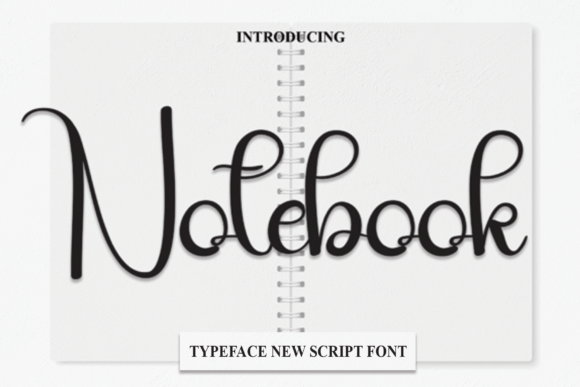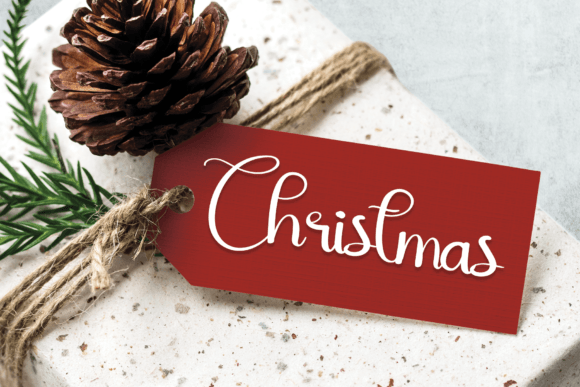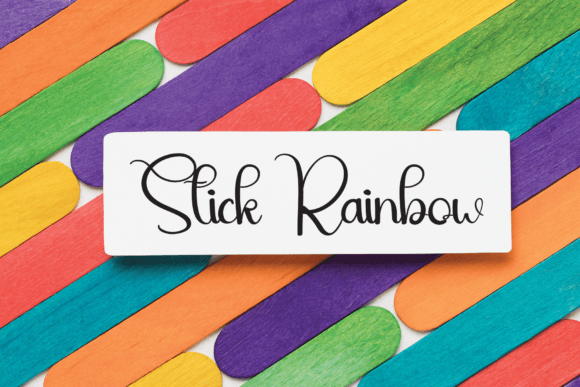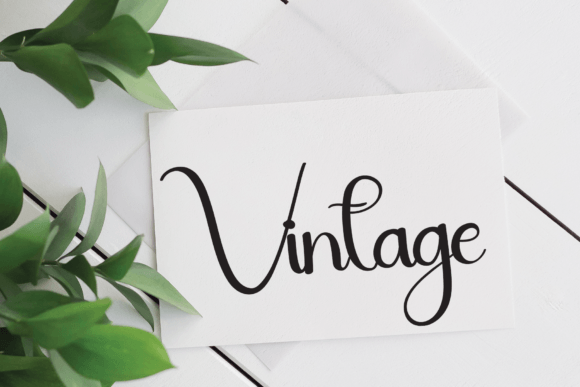
Notebook Font
Add a natural and approachable feel to your creative projects with the Notebook font. This simple and friendly handwritten script is perfect for a variety of occasions. Whether you are working on crafts, digital design, presentations, or greeting cards, Notebook is a great choice to enhance your work.
The Notebook font features clean and easy-to-read strokes that add warmth and friendliness to any design. Its versatile style allows it to be used across many different creative projects. This font helps your designs feel personal and inviting.
You can use the Notebook font for crafts, digital artwork, presentations, and card-making. Its casual yet neat look works well for projects that want to connect with audiences through a natural handwritten style. This font is ideal for anyone seeking an easy-to-read and charming script.
Despite its simple design, the Notebook font maintains excellent readability across different sizes. Whether used in large headings or smaller text, it ensures your message remains clear and stylish.
Using the Notebook font will add a friendly and genuine character to your designs. If you want a handwritten font that’s versatile and easy to use, this font is an excellent addition to your collection.
In summary, the Notebook font is a simple, friendly, and versatile handwritten script. Perfect for crafts, digital designs, presentations, and greeting cards, it brings warmth and personality. Download it today and make your projects more inviting with Notebook.